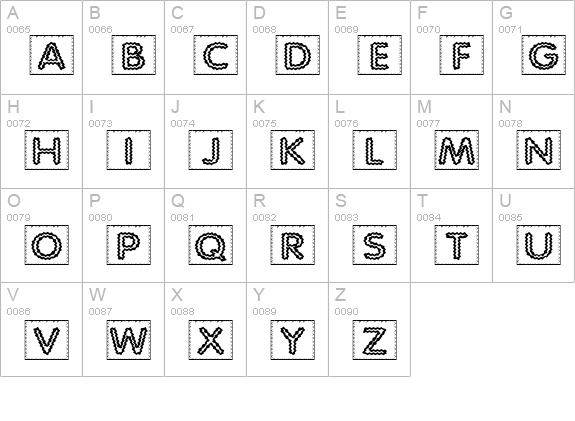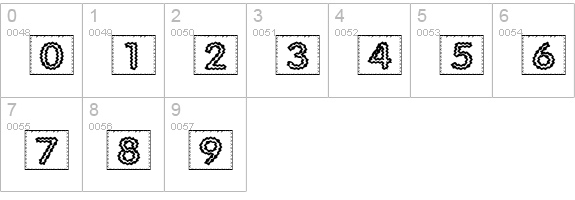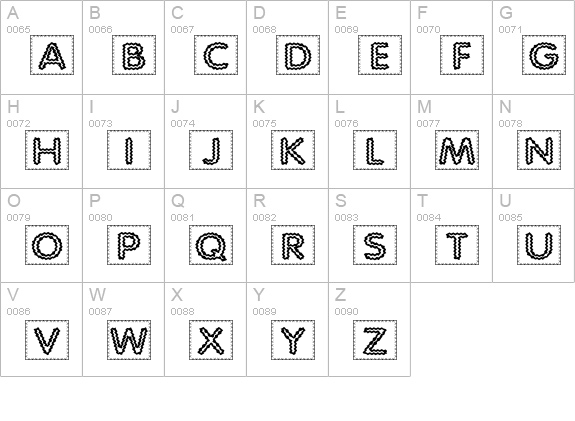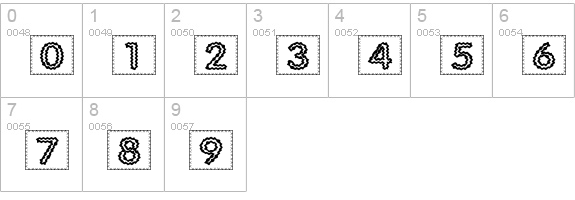
Quilted Indian Font Details
Introducing the enchanting and visually stunning Quilted Indian font, a true testament to the rich cultural heritage of India. This exquisite typeface effortlessly captures the intricate beauty of traditional Indian textiles, as seen in its meticulously designed quilt-like patterns that adorn each character. Quilted Indian font exudes a sense of elegance and grace, drawing inspiration from the vibrant colors, mesmerizing motifs, and intricate details found in Indian textiles. With its unique fusion of traditional and contemporary elements, this font is perfect for adding a touch of exotic flair to any design project. Its versatility knows no bounds, making it an ideal choice for a wide range of creative endeavors, including logo designs, branding, packaging, invitations, posters, and so much more. Whether used in digital or print media, Quilted Indian font never fails to captivate and leave a lasting impression. What sets this font apart is not only its remarkable design but also its accessibility. It is freely available to download at FontsMarket.com, allowing designers, artists, and enthusiasts from all walks of life to effortlessly incorporate its distinct charm into their work. This generous offering ensures that everyone can experience the magic of Quilted Indian font without any limitations. So, immerse yourself in the vivid tapestry of Indian culture with the Quilted Indian font. Let its intricate patterns and timeless elegance transport you to a world of beauty and inspiration. Unleash your creativity and watch as this exquisite typeface transforms your designs into true works of art. Download Quilted Indian font today and embark on a journey of limitless possibilities.